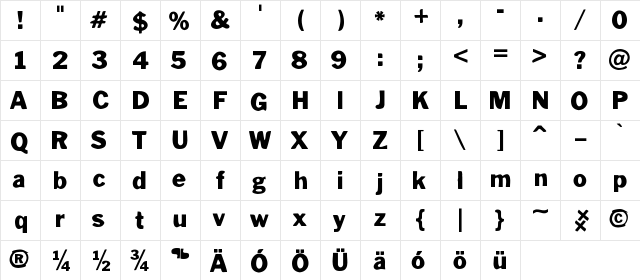
Poterski HND CE Bold
Design Context for Poterski HND CE Typeface
Poterski HND CE is a composed and adaptable typeface that performs quietly and consistently across a wide range of design contexts. The heavy weight commands attention and anchors typographic hierarchies.